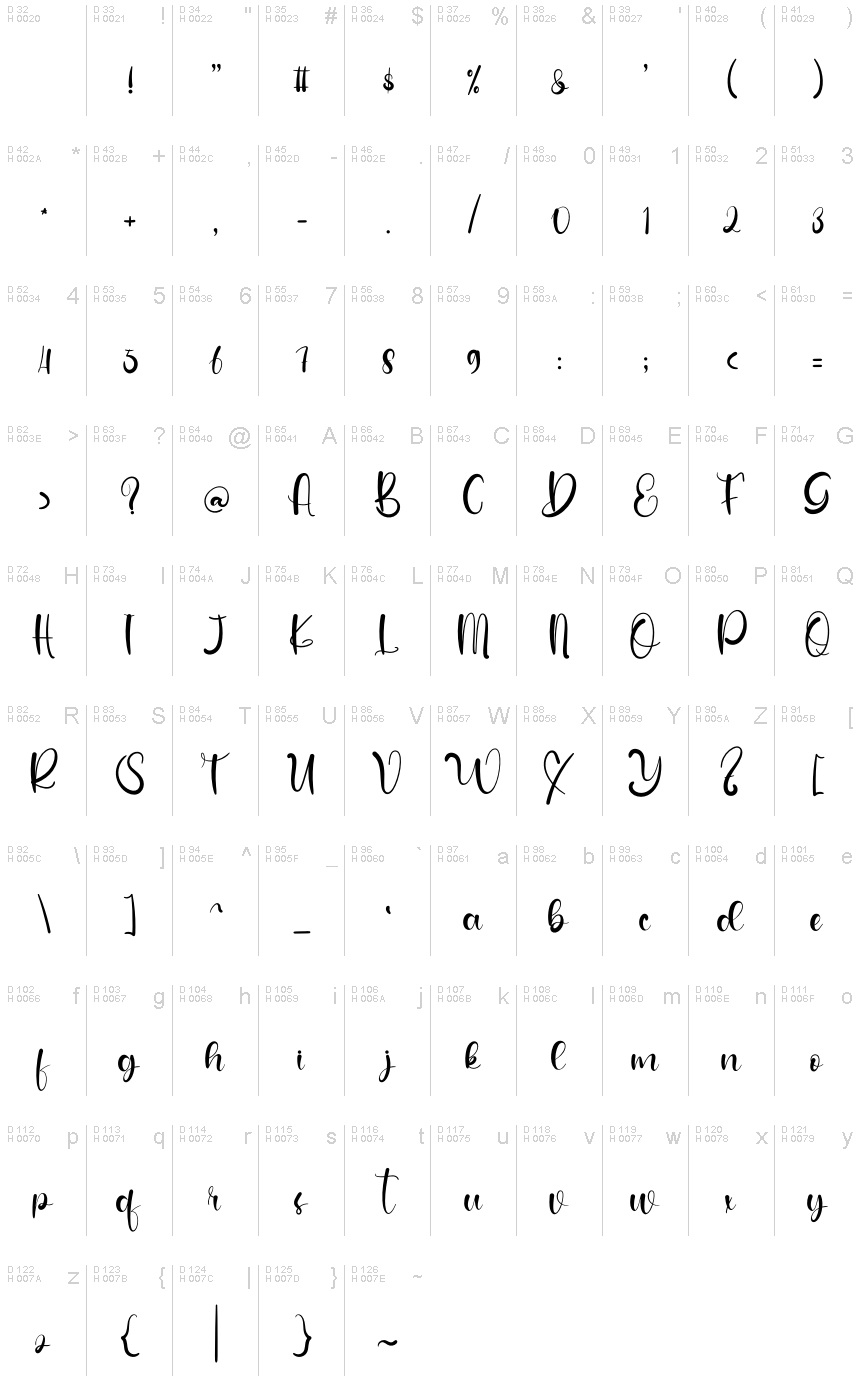
Drinks
Drinks, a signature creation by PiPi Creative, embodies the casual elegance of handwritten script with its semi-light weight. This font's fluidity suggests a personal touch, while its clean lines ensure legibility and a modern aesthetic. Its charming style is versatile enough to enhance various creative projects, from branding and packaging to invitations and social media graphics.
The Drinks font captures the essence of bespoke craftsmanship with each sweeping curve and neat stroke. It holds the potential to add a delightful, approachable feel to your designs, making it an ideal choice for industries seeking to convey warmth and personality in their visual communication. Whether you're crafting menus for a chic café or designing promotional materials for an artisanal product line, Drinks offers that handcrafted appeal that can make your project stand out.